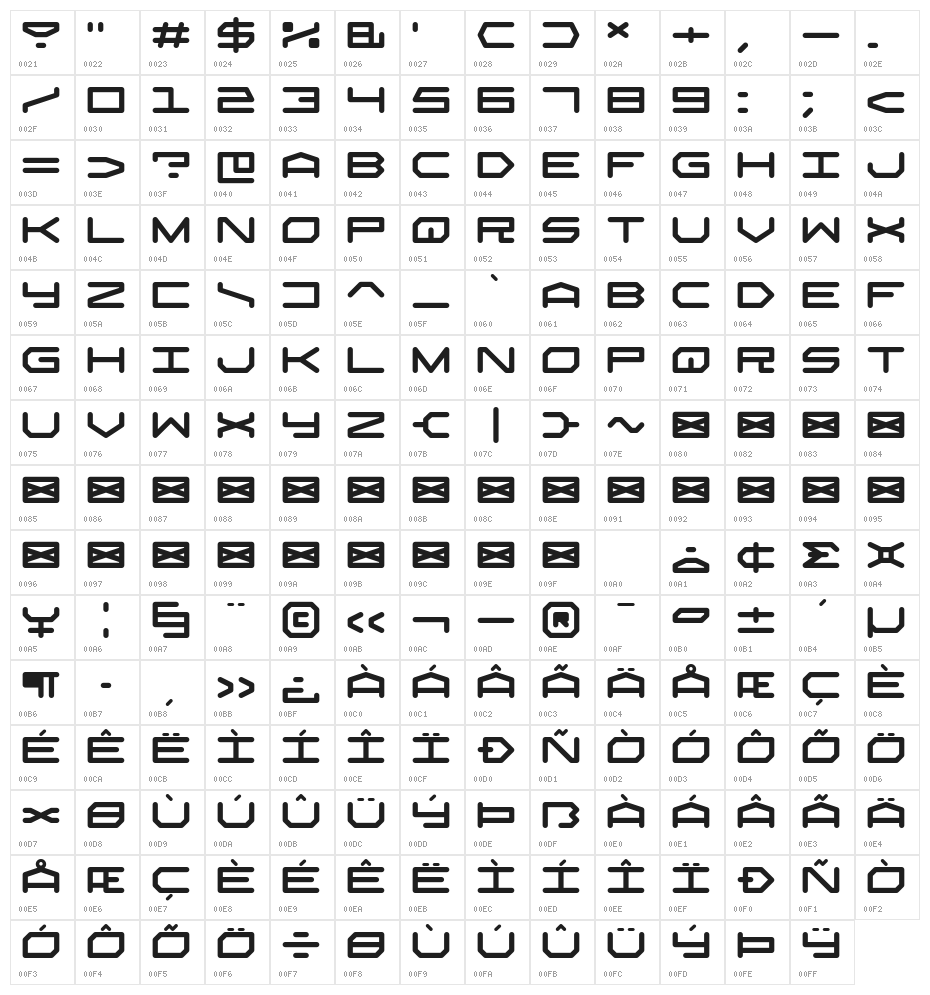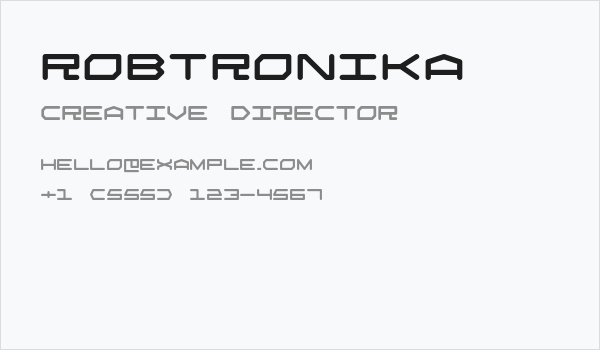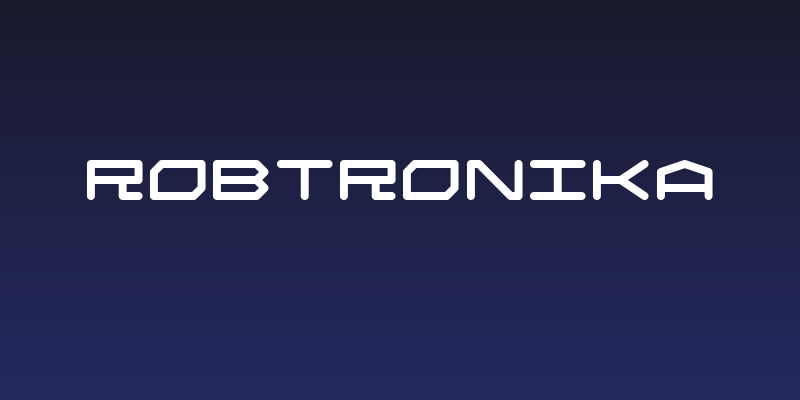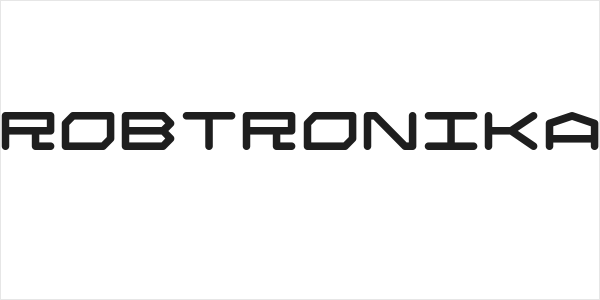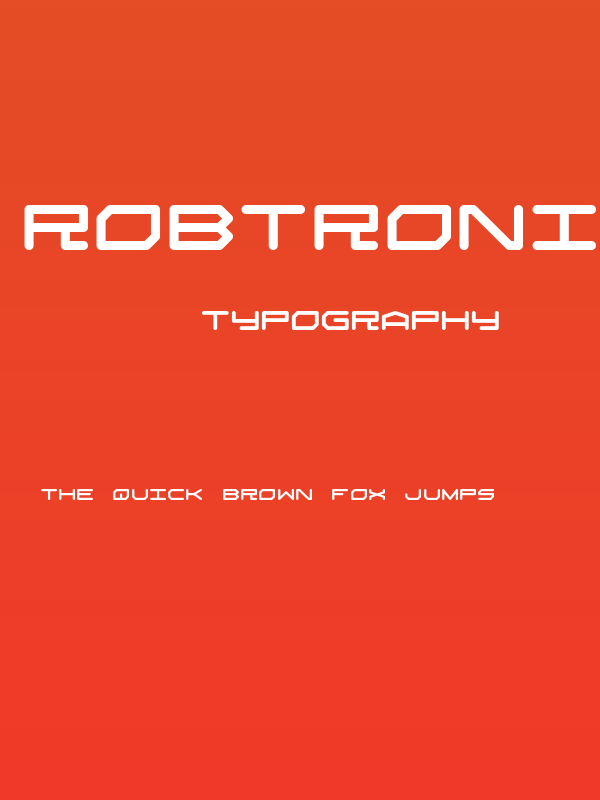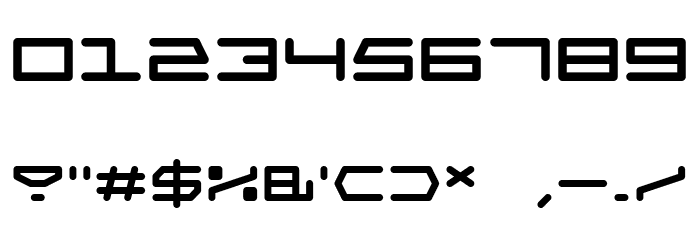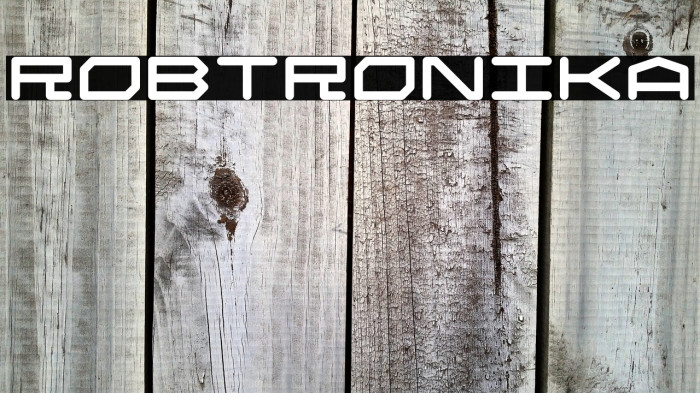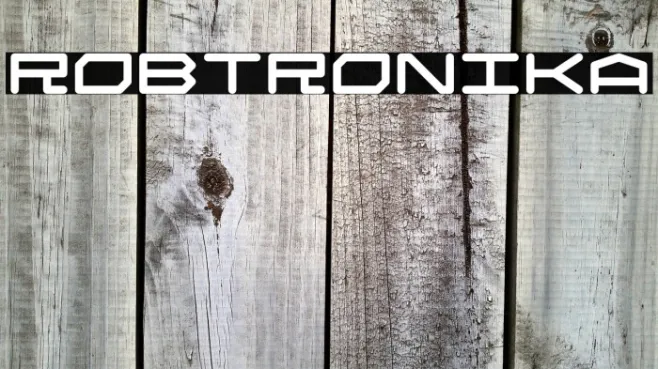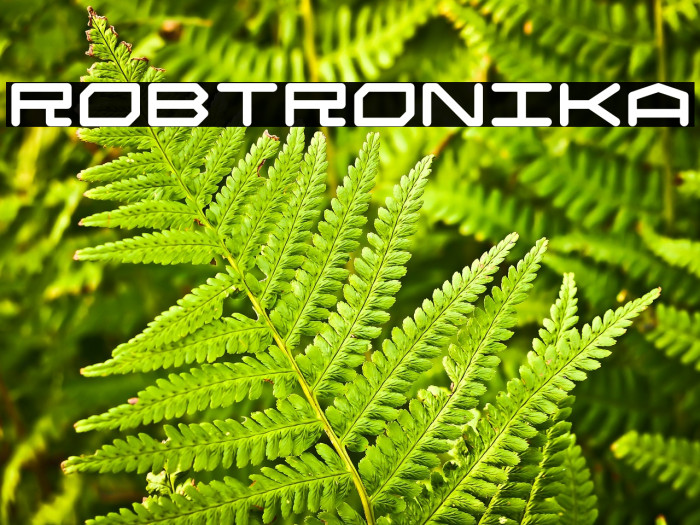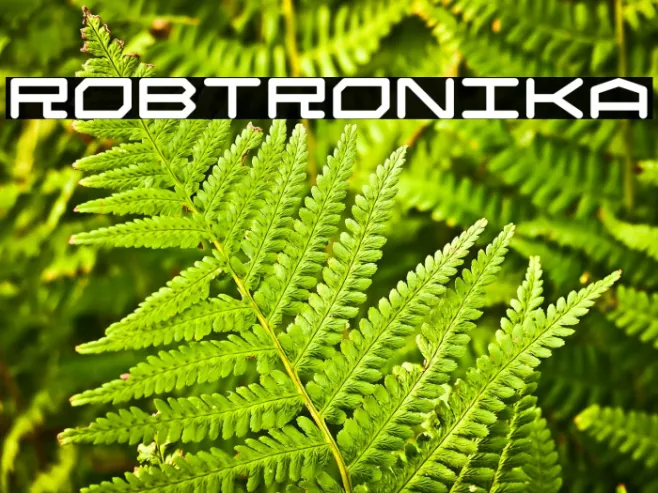
This font features a futuristic and geometric design, characterized by its clean lines and angular shapes. The characters are constructed with a consistent stroke width, giving it a uniform appearance. The uppercase and lowercase letters share a similar structure, enhancing the cohesive look. The numerals and special characters maintain the same stylistic approach, ensuring a seamless integration across different text elements. Its modern aesthetic is suitable for technology-related projects or any design that requires a sleek and contemporary feel.
| Proposed Projects | Ideal for technology branding, sci-fi themed designs, video game interfaces, and modern advertising. |